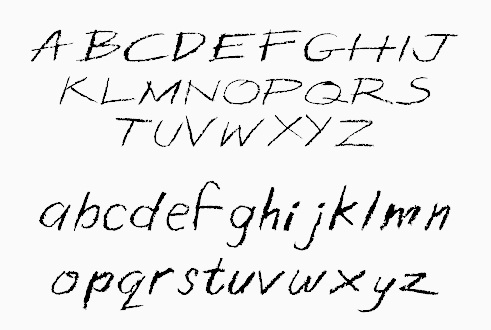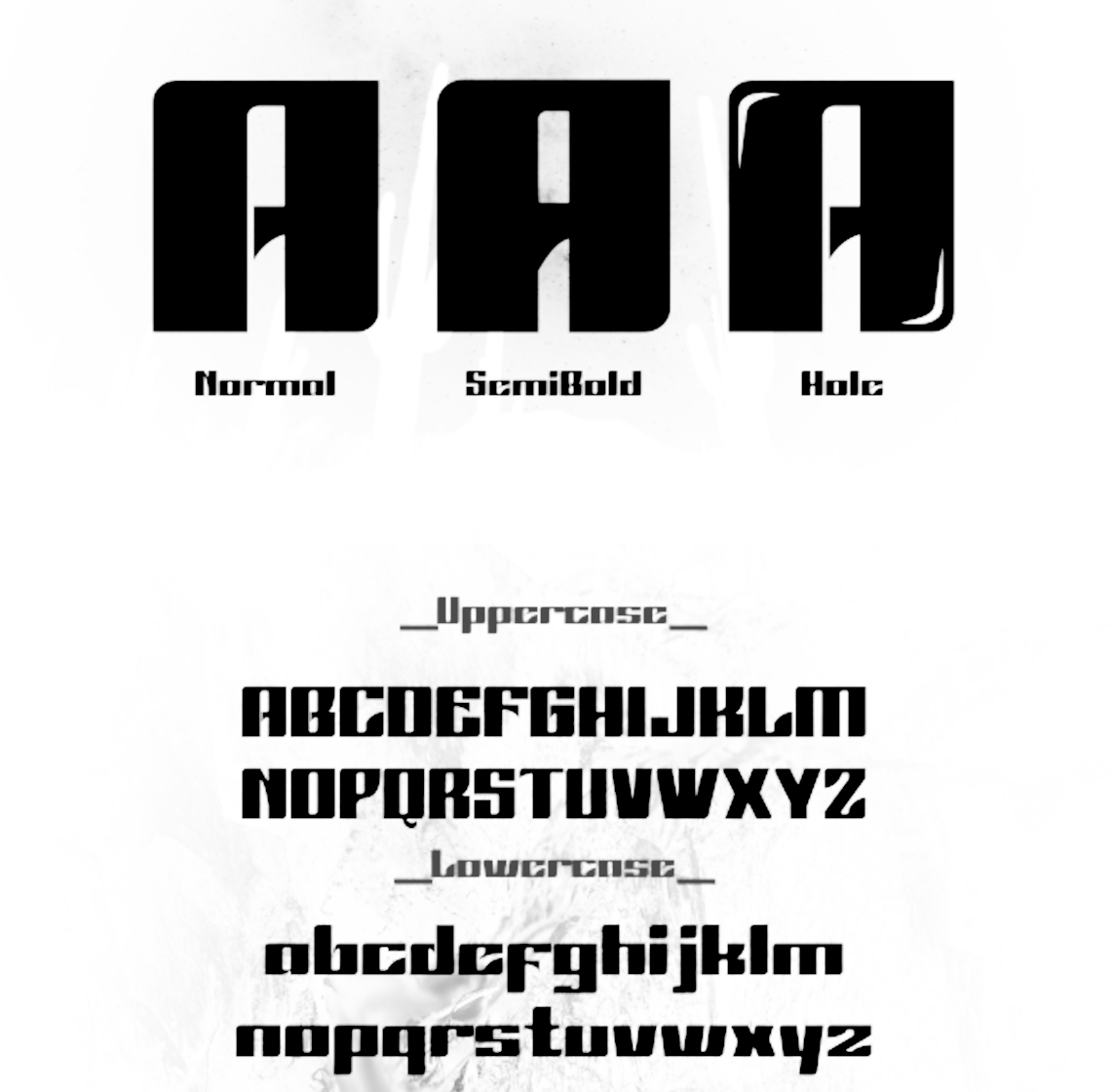
Niznaztype (was: Em Nazar) [Muhammad Nazarudin]
Indonesian type designer, operating as Em Nazar, Muhammad Nazar and Niznaztype. Typefaces from 2020: Neiva Flowers (a curly script), Kidyzen (a children's script), Escape Signature, Happy Boy (perhaps for comic books), Loveena, Aljameela (a monolinear marker pen font), Black Racer, Neonix (a fat monolinear modular sans), Redriver (called postmodern by its designer), Xelouaja, Krezna, Teatarick, Juliaguz, Dunk Godox.
Typefaces from 2019: Catloekeys (brush), Brush Brezz, Zanzibar, Etnico (stone cut), Obey (a signature font), Gundos, Velosia, Ramesgo.
Typefaces from 2018: the techno typeface Emporium and the curly script typeface Lacaruna DemiBold.
In 2017, he operated as Niznaz at Graphicriver and published these typefaces that year: Azmatt, Icetea, Crazzon (chalk or crayon font), Exriver, Boxtoc, Oretz, Qoubizza, Stereoz. In 2016, he designed Hiroshio (an oriental simulation font) and Nexhope (a modular typeface).